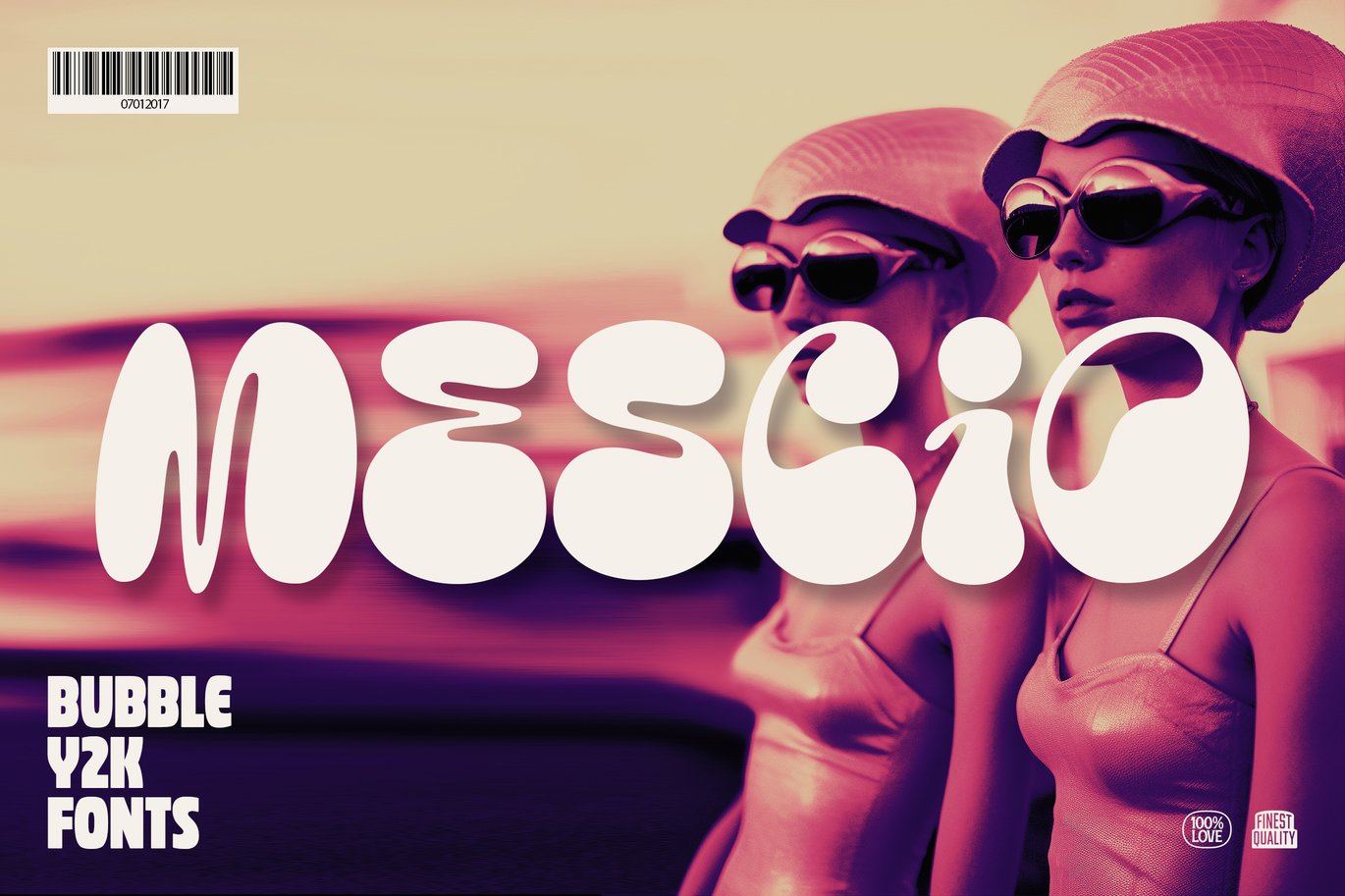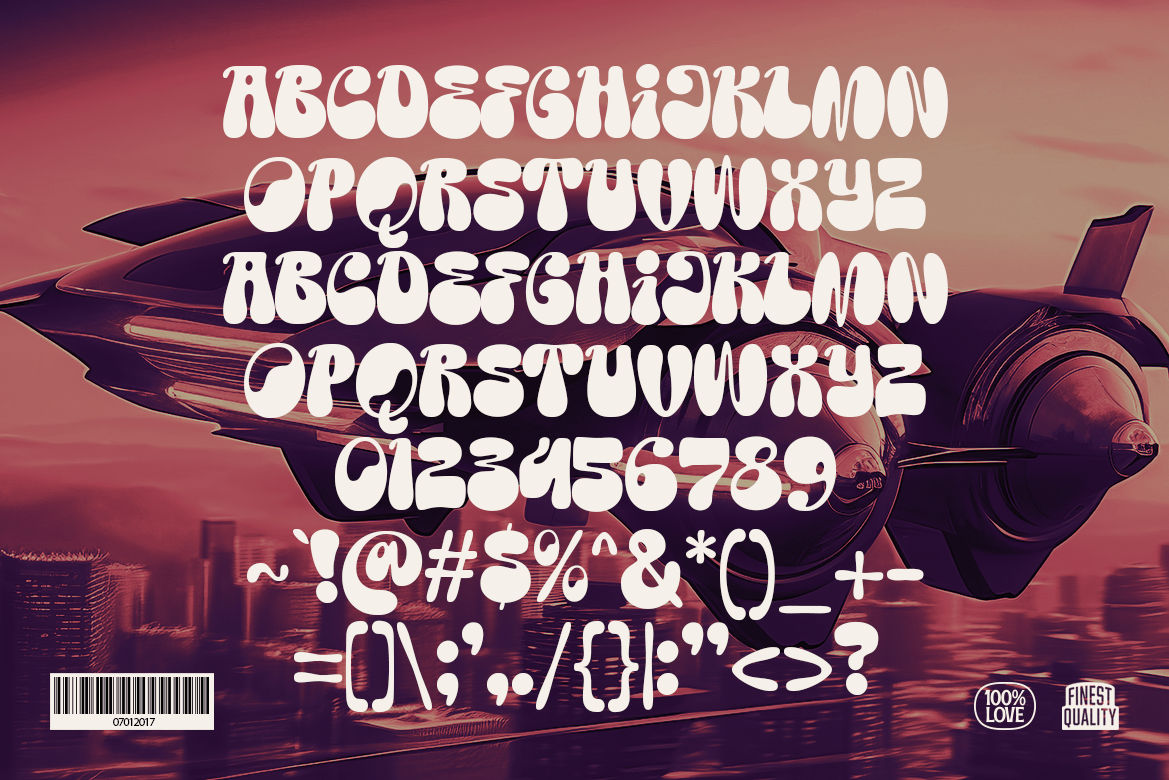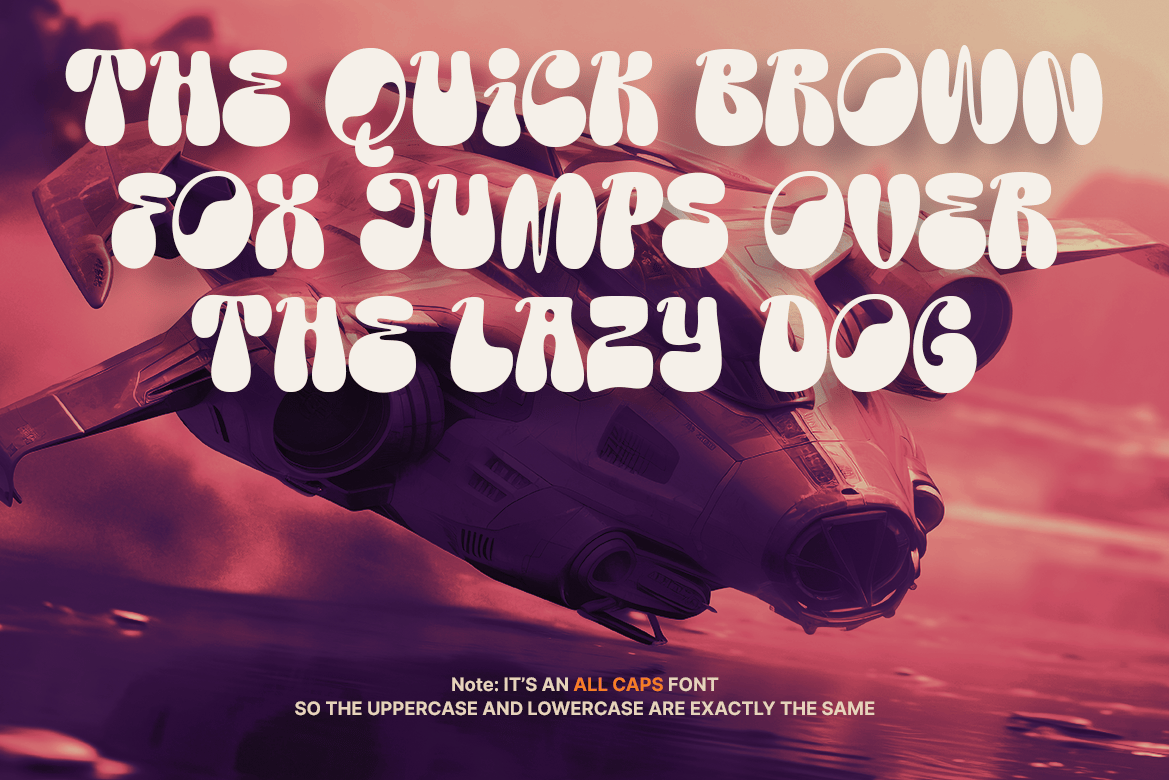
Mescio – Bubble Y2K Fonts
Step back into the vibrant world of the early 2000s with Mescio – the ultimate bubble font collection that’ll transport you straight to the era of pop music, neon lights, and cyber dreams!
Whether you’re designing a 2000s-inspired poster or want to add a nostalgic touch to your modern creations, Mescio is the perfect tool to turn back time! Make your music stand out with a touch of nostalgia – perfect for indie artists and music producers.
Make your creative projects scream “Y2K” with our Mescio Bubble Fonts. Get ready to party like it’s 1999.